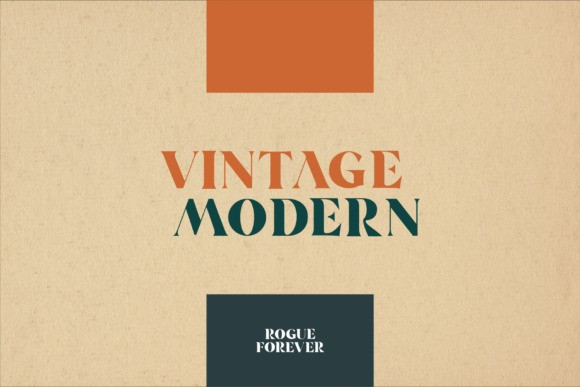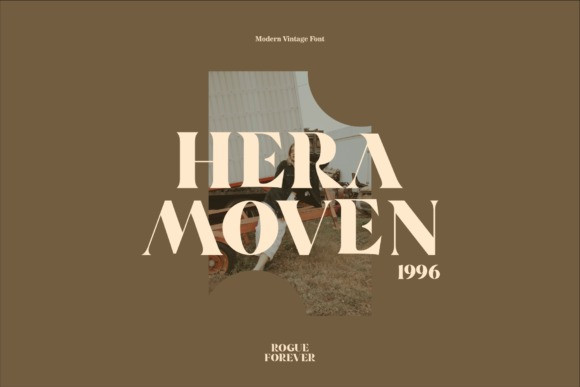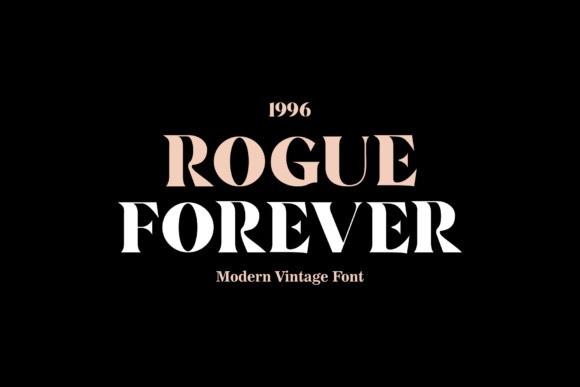
Rogueforever Font
Rogue Forever Serif Font is a cool, bold and thick lettered serif font. This original look will appeal to a wide range of crafty ideas, from letterheads and titles, to stationery.